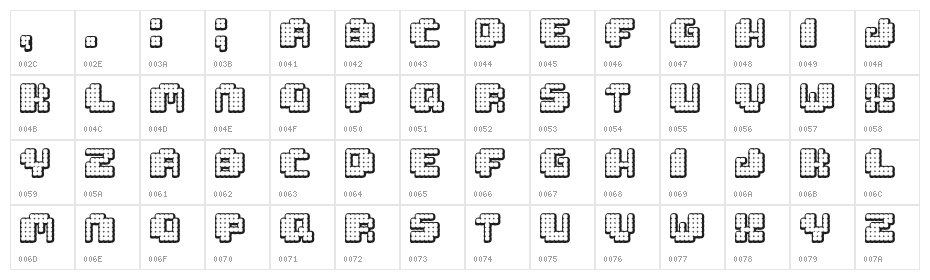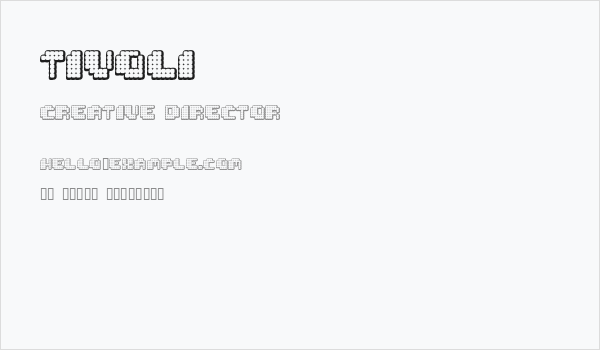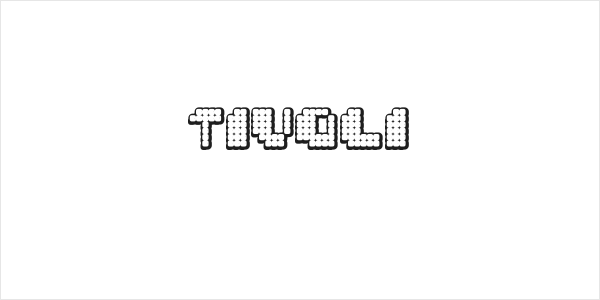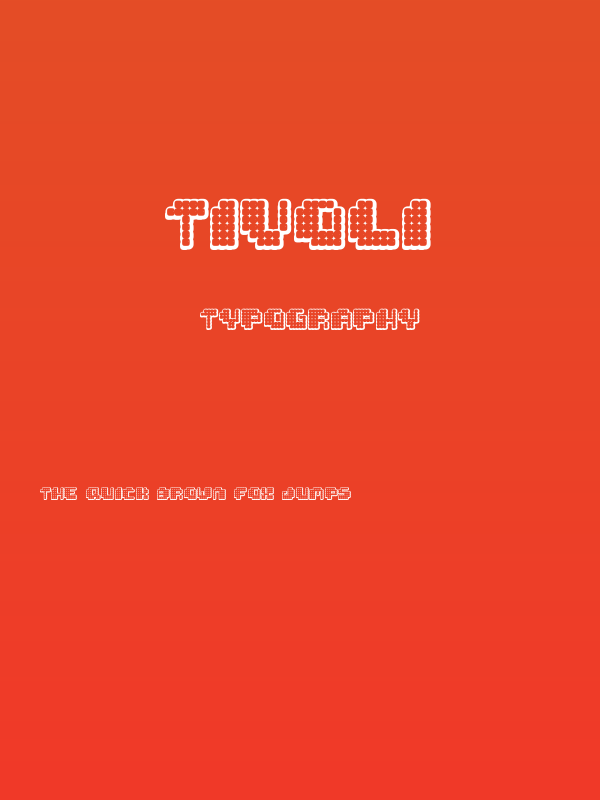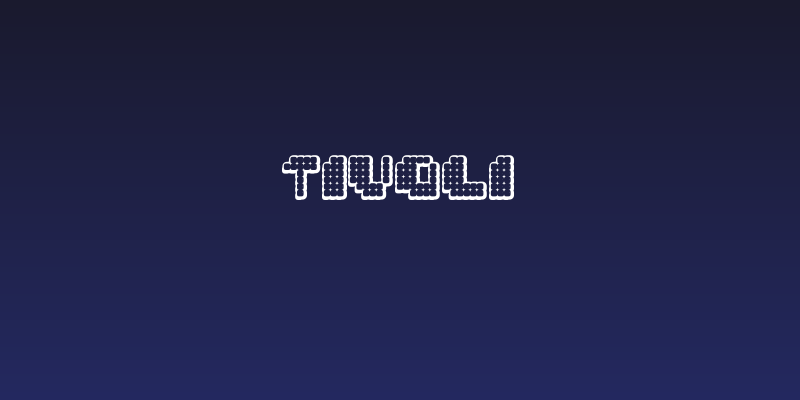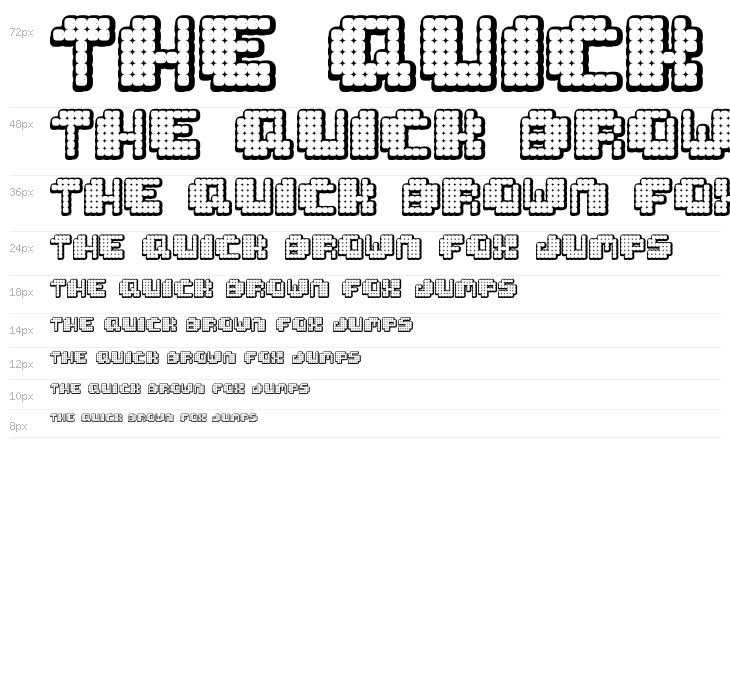
Tivoli Font
Tivoli Description
This font features a playful and decorative style, characterized by its dotted pattern that forms each letter. The characters are bold and outlined, giving them a three-dimensional appearance. The uppercase and lowercase letters maintain a consistent design, with rounded edges and uniform dot spacing. The numerals and special characters follow the same design principles, ensuring a cohesive look across all glyphs. This font is ideal for creating eye-catching headlines or playful designs, where a sense of fun and creativity is desired. Its unique style makes it stand out, perfect for projects that require a distinctive and memorable typeface.
| Overall Style | Playful, Decorative |
| Proposed Projects | Ideal for children's books, party invitations, posters, and playful branding. |